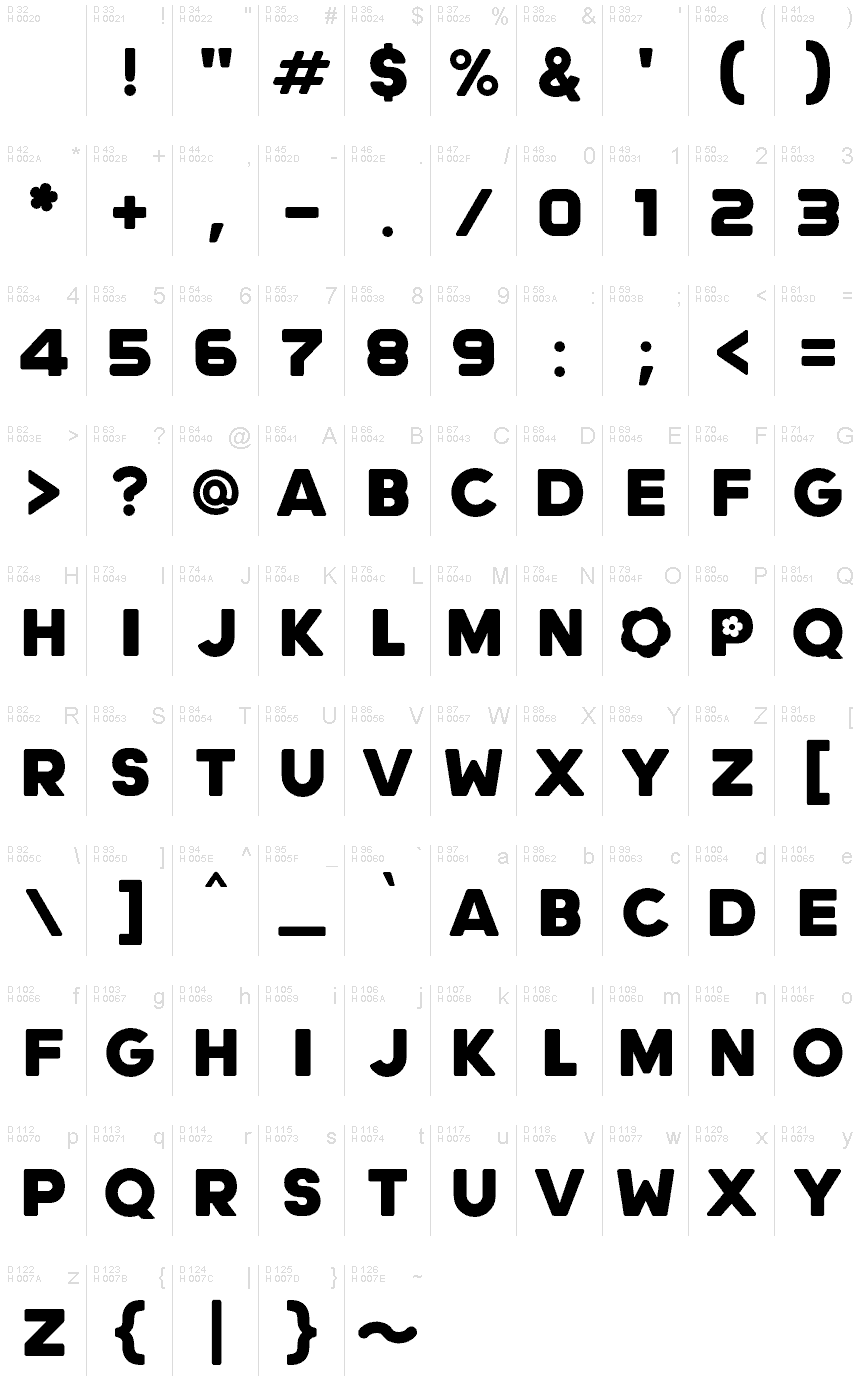
Pikmin Neue
Pikmin Neue font by Lektor Media is a geometric bold display font that brings an undeniably clean and structured appearance to any design. Featuring contemporary characters, this free font has a modernist feel with its sans-serif style, keeping headlines easy on the eye. Used in moderation, longer texts can also be set beautifully and designed to perfection with Pikmin Neue.